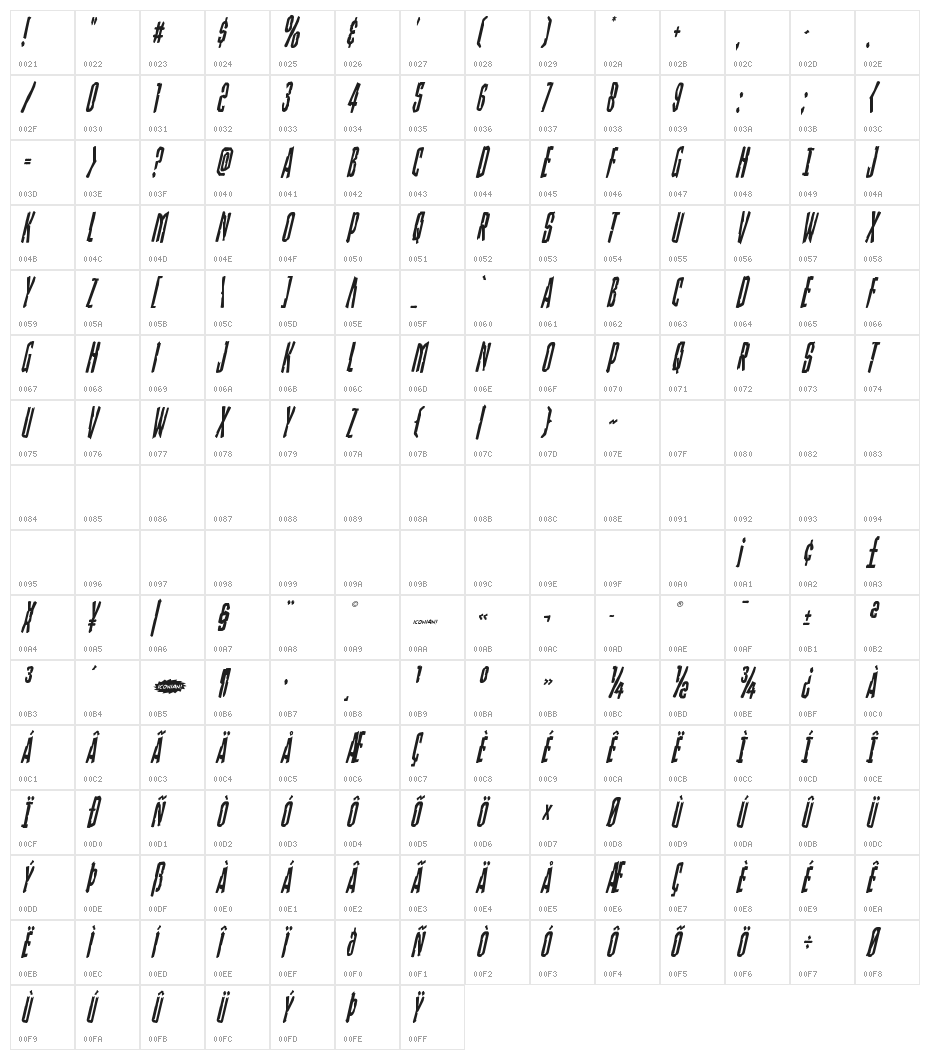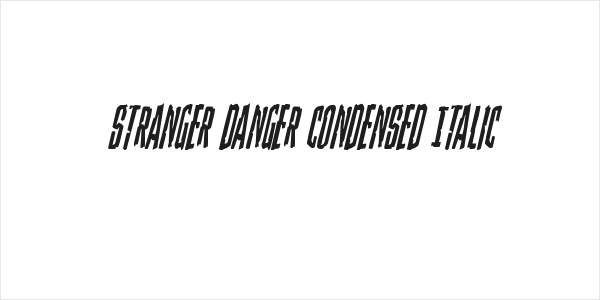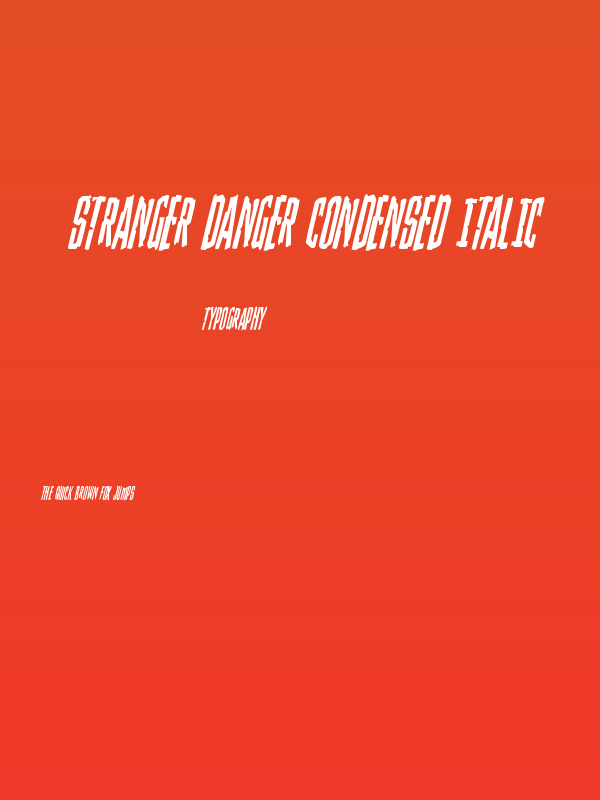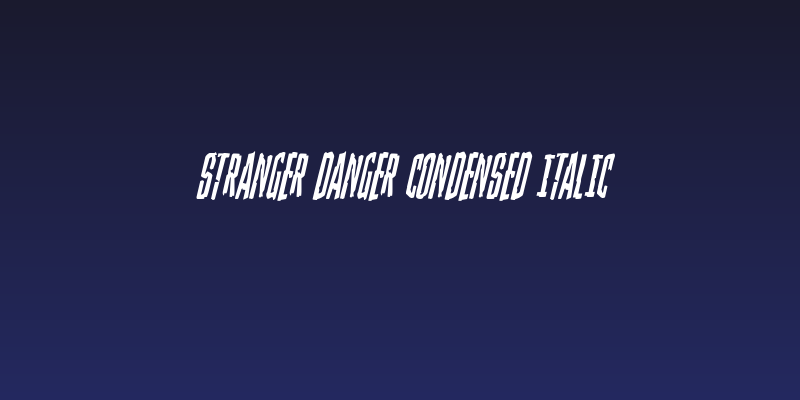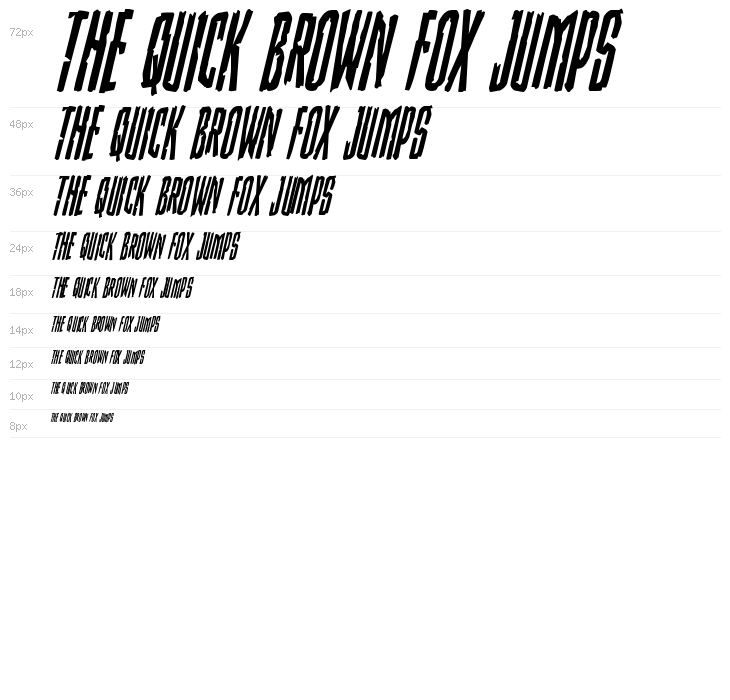
Stranger Danger Condensed Italic Font
Stranger Danger Condensed Italic Description
This font features a bold, condensed style with a distinct italic slant, giving it a dynamic and energetic appearance. The characters are tightly spaced, enhancing the condensed effect, while the high contrast in stroke thickness adds to its boldness. The uppercase and lowercase letters maintain a consistent style, with sharp angles and a slightly aggressive flair. The numerals and special characters are designed to match the overall aesthetic, ensuring uniformity across all glyphs. This font's unique style makes it stand out, suitable for projects that require a strong visual impact.
| Proposed Projects | Ideal for posters, logos, branding, and any design needing a bold statement. |